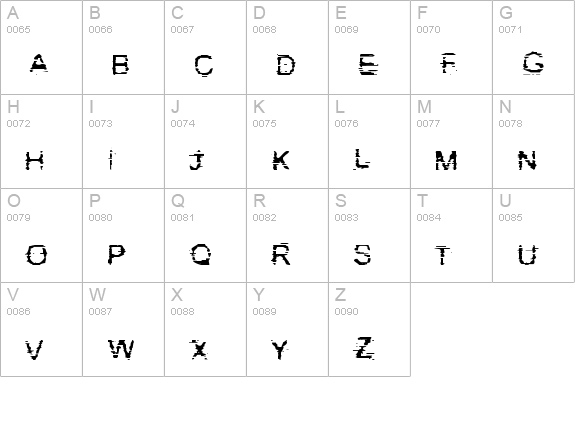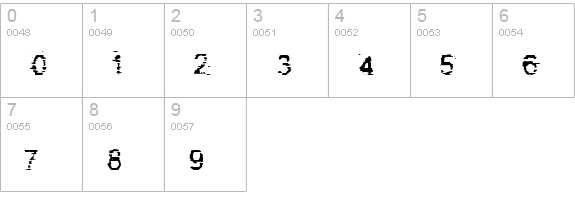
Bad Cargo 2.0 Font Details
Introducing Bad Cargo 2.0, a striking and edgy font that pushes the boundaries of creativity and design. This font is the perfect choice for those seeking to make a powerful statement with their typography. With its bold and unconventional letterforms, Bad Cargo 2.0 demands attention and leaves a lasting impression. The unique and distinctive characteristics of Bad Cargo 2.0 make it ideal for a wide range of projects. Whether you're designing a logo, creating eye-catching headlines, or crafting a poster that demands to be noticed, this font will take your work to new heights. But what makes Bad Cargo 2.0 even more appealing is that it is available for free! That's right, you can download this incredible font without spending a single penny. Simply head over to FontsMarket.com and access this font, along with a vast collection of other high-quality fonts. With its free availability, Bad Cargo 2.0 ensures that you can elevate your design without breaking the bank. So, don't miss out on this fantastic opportunity to add a touch of boldness and creativity to your projects. Download Bad Cargo 2.0 now and let your typography speak volumes.